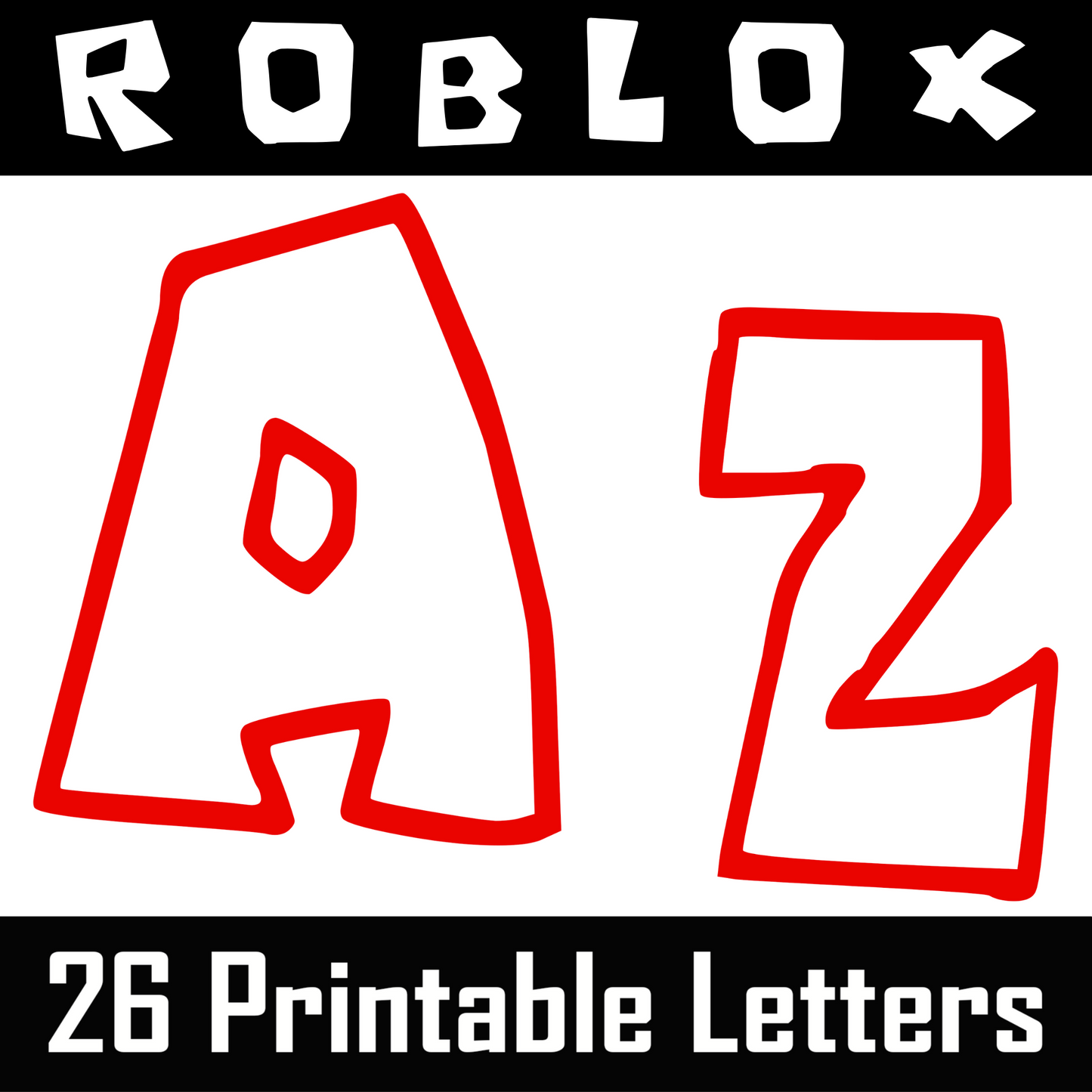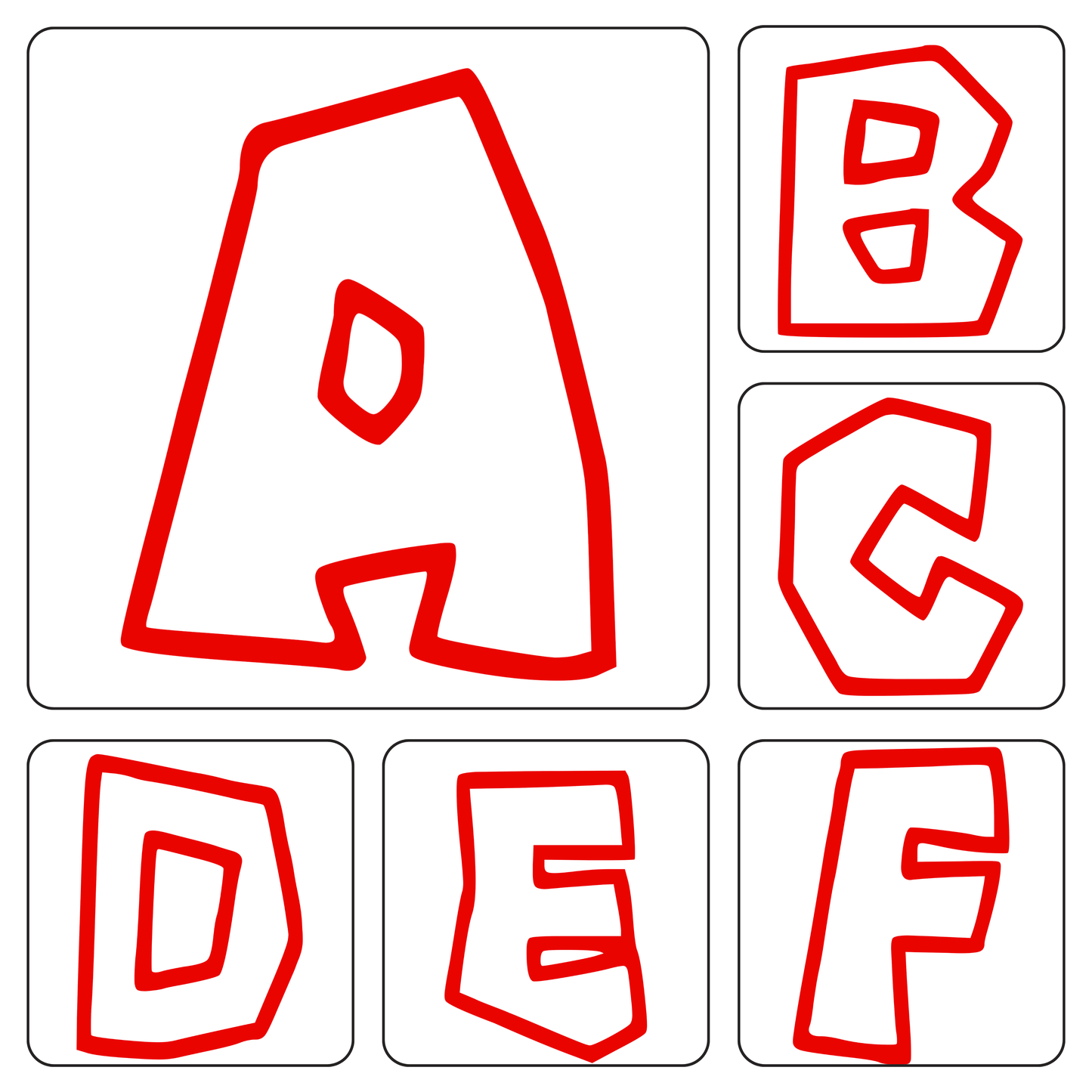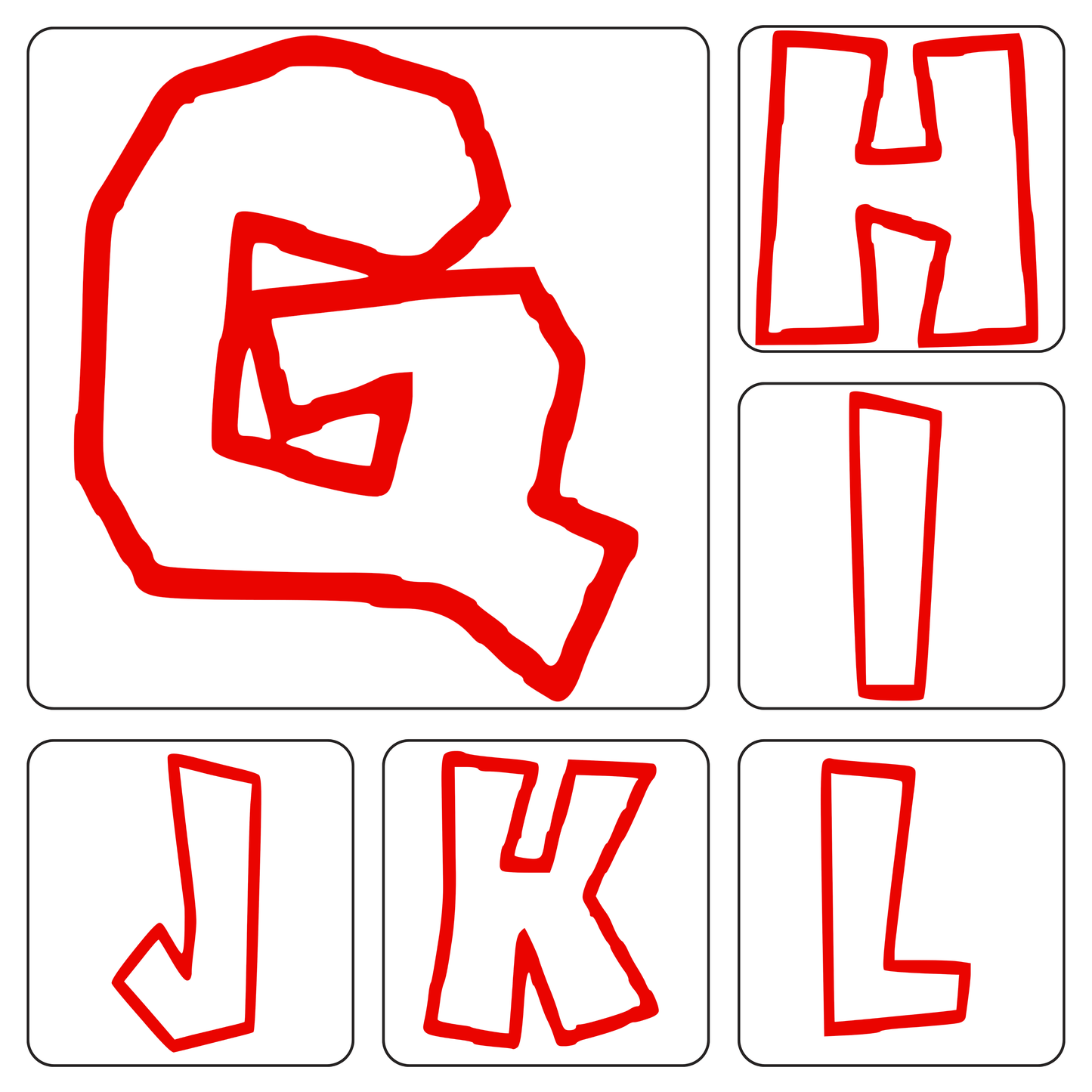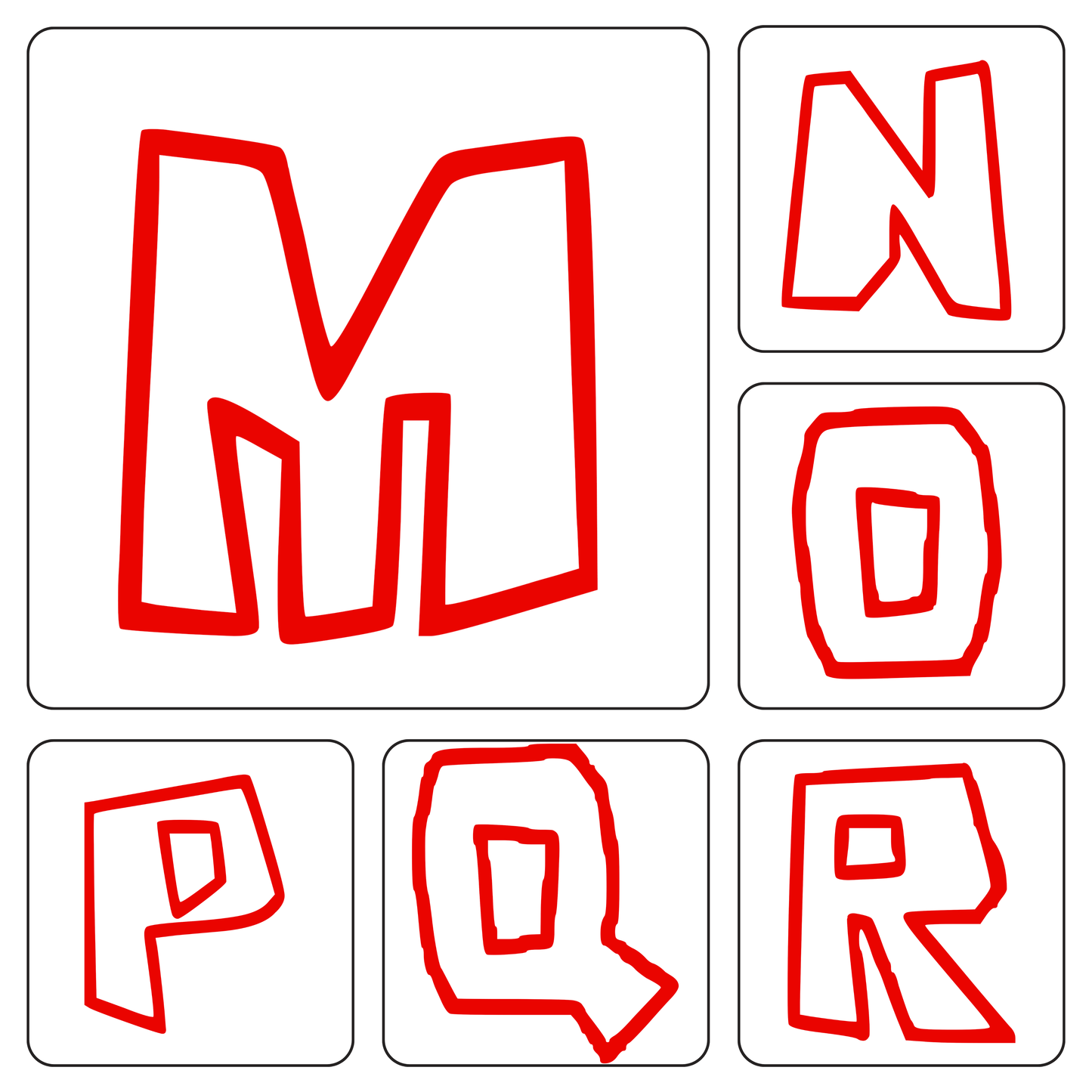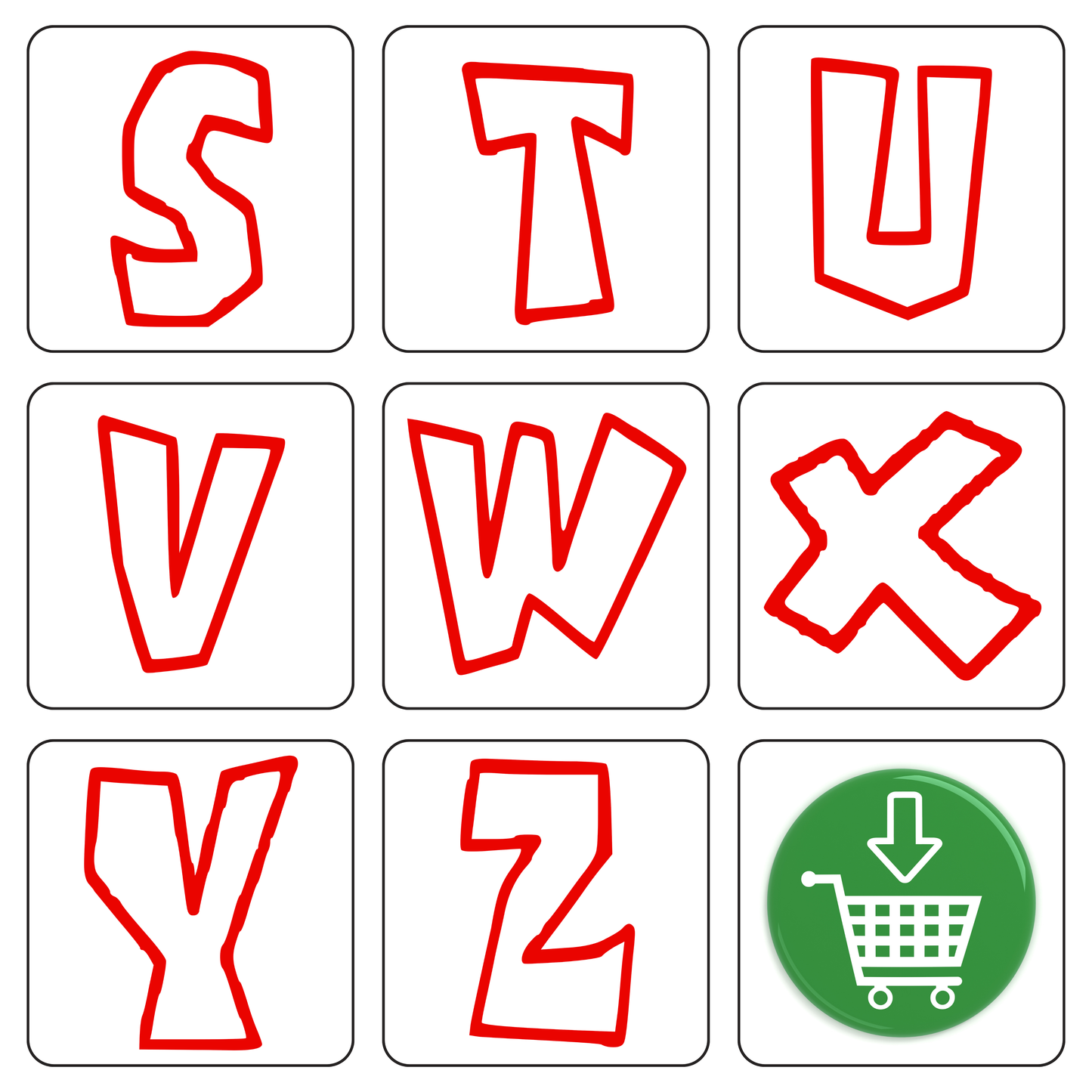
Roblox Font Alphabet A–Z
Power up your classroom, party, or creative project with this full set of Roblox-style alphabet letters! Each letter from A to Z features bold red outlines and a blocky, dynamic shape inspired by the iconic Area Roblox font. Perfect for gamer-themed banners, flashcards, homeschool printables, and digital crafts.
🕹️ Perfect For
• Gamer birthday parties
• Classroom bulletin boards
• Alphabet flashcards
• Scrapbooking & DIY crafts
• Homeschool activities
• Roblox-themed worksheets